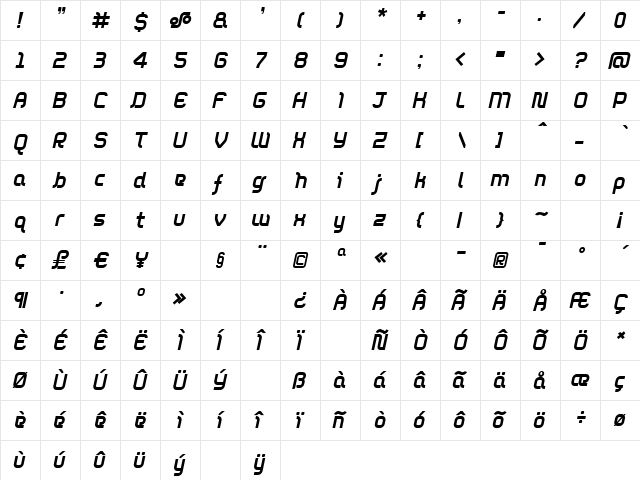
DieppeRegular Oblique Regular
Design Context for DieppeRegular Oblique Typeface
DieppeRegular Oblique takes a measured approach to typography — its balanced proportions and neutral character make it a reliable workhorse for both digital and print work. The dynamic lean of this cut emphasises speed and emphasis in any layout.
Pro Tip: Use DieppeRegular Oblique for emphasis, pull quotes, and subheadings where its slanted energy can add rhythm to the layout.